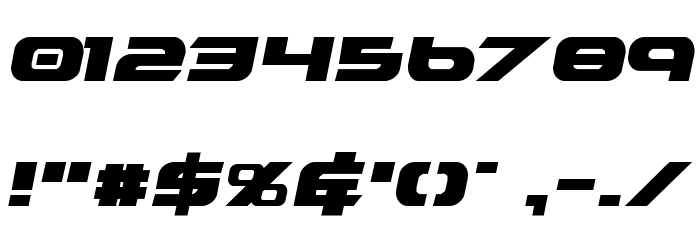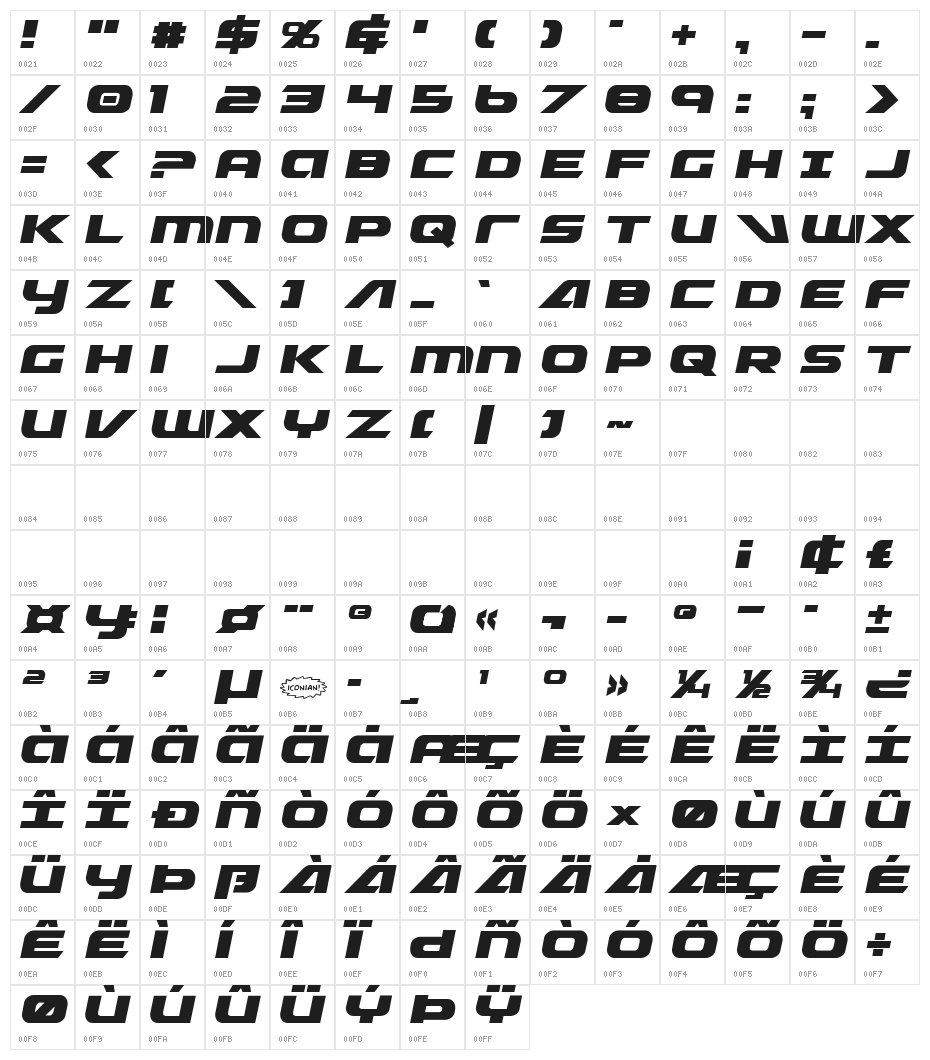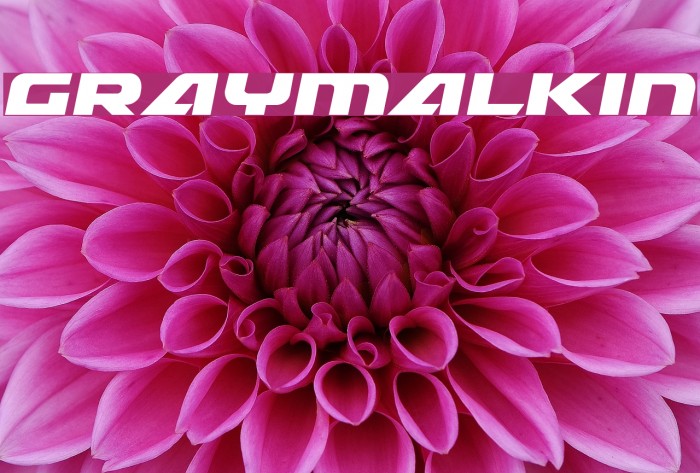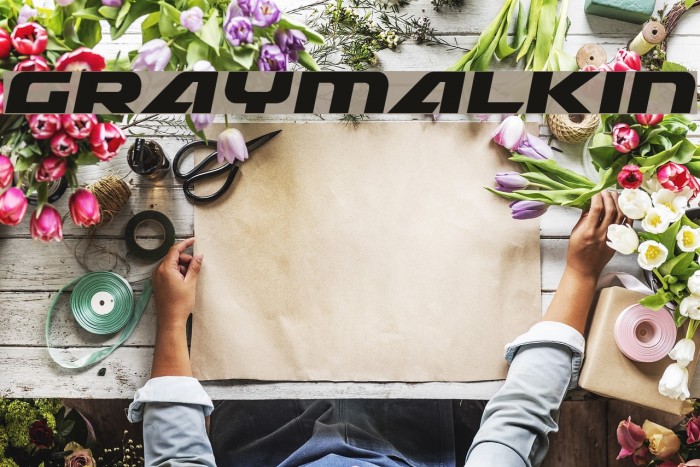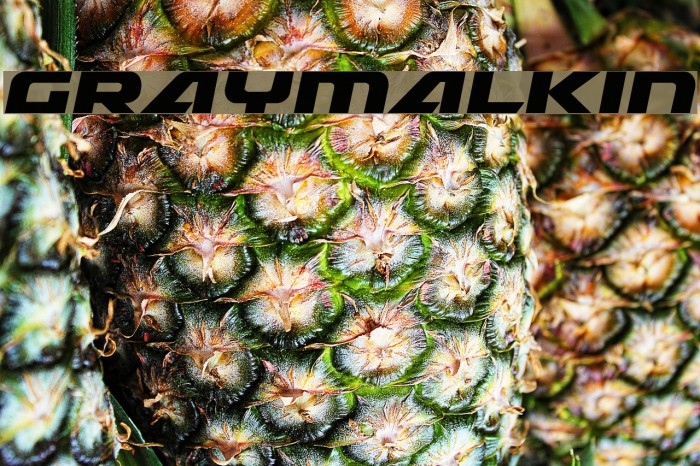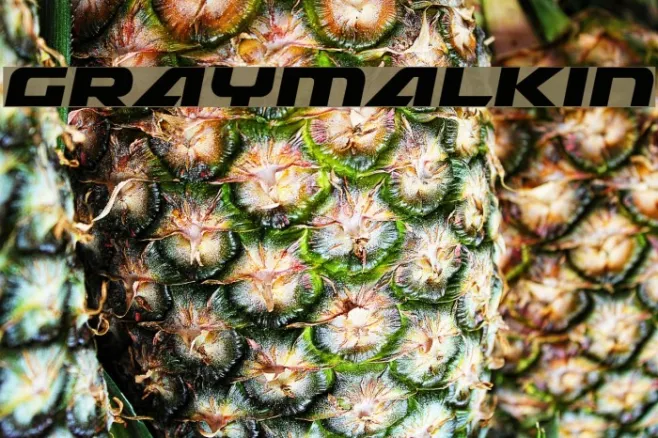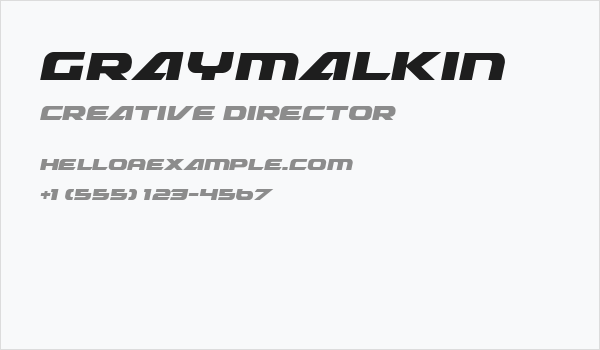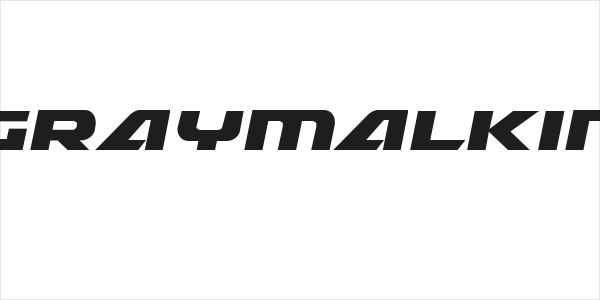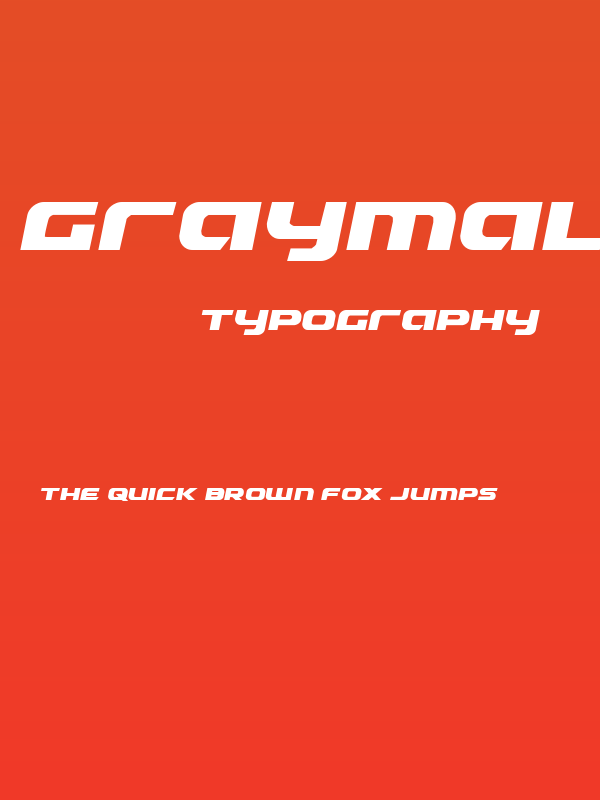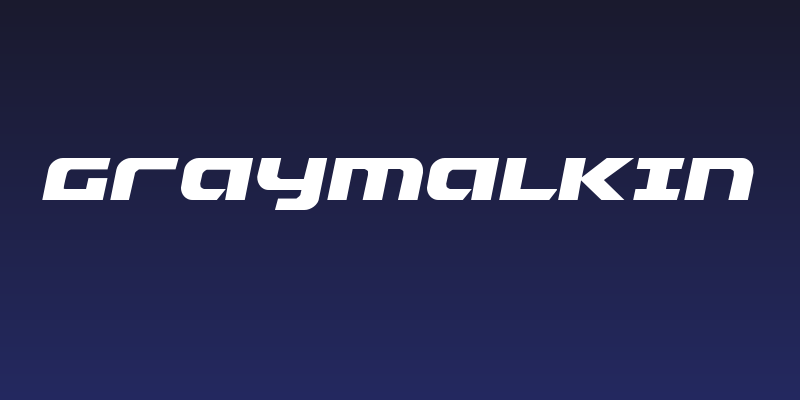
Graymalkin Font
Graymalkin Description
This font features a bold, futuristic design with a strong geometric influence. The characters are slightly italicized, giving a sense of motion and dynamism. Each letter is crafted with sharp angles and clean lines, creating a sleek and modern appearance. The uppercase and lowercase letters maintain a consistent style, with the lowercase being slightly more compact. Numbers and special characters follow the same design principles, ensuring uniformity across all glyphs. The font's bold weight and medium contrast make it highly legible, even at smaller sizes. Its unique style is ideal for projects that require a contemporary and edgy look.